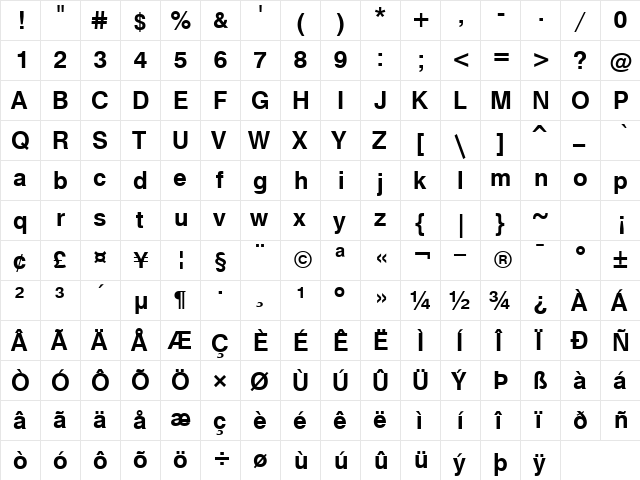
HebarU Bold
Design Context for HebarU Typeface
HebarU offers clean, dependable letterforms without strong stylistic allegiance, making it a practical choice for designers who need flexibility. Its bold stroke weight gives it real presence on the page.